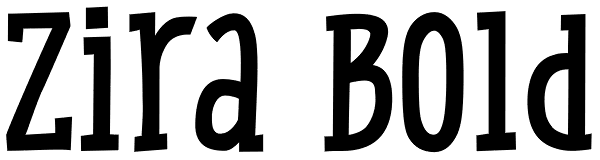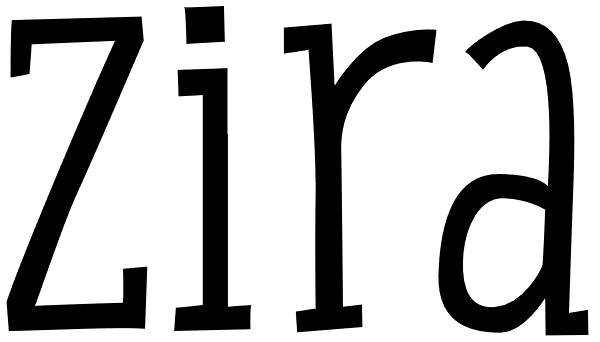
Zira
Zira is a playful hand-drawn font family designed by Daniel Bak (Artcity). It is available in three handy weights: regular, bold and screaming. It contains international language accent marks and diacriticals, including Greek and Cyrillic in both...
Zira Bold
Zira Small Bold
Zira
Zira Small